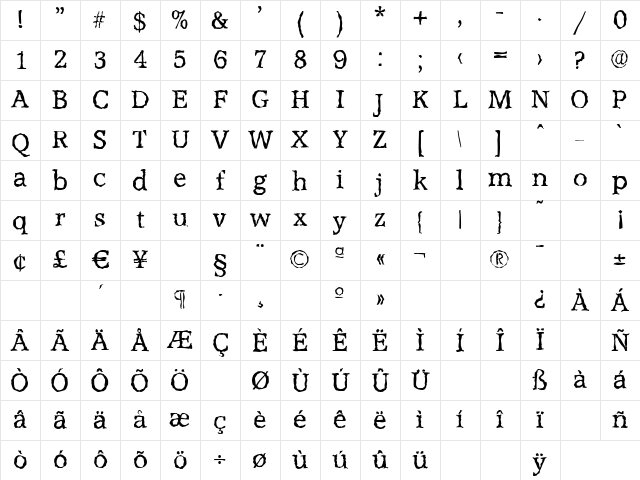
AccoladeRandom Regular
Design Context for AccoladeRandom
AccoladeRandom is a composed and adaptable typeface that performs quietly and consistently across a wide range of design contexts.
Pro Tip: Use AccoladeRandom in both headline and body roles to test its range before committing to a single application.